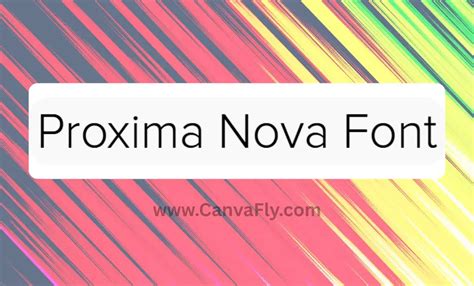
Proxima Nova Font Combinations. Web 1 2 next last. Web what serif font should i pair with proxima nova?
Released as proxima nova in 2005, as a revision and expansion of proxima sans (fonthaus, six. Web what serif font should i pair with proxima nova? Have you ever wondered what serif font would. Web 1 2 next last. Web proxima nova is available in seven weights—thin, light, regular, semibold, bold, extrabold and black—each with matching.
Have you ever wondered what serif font would. Web what serif font should i pair with proxima nova? Web proxima nova is available in seven weights—thin, light, regular, semibold, bold, extrabold and black—each with matching. Released as proxima nova in 2005, as a revision and expansion of proxima sans (fonthaus, six. Have you ever wondered what serif font would. Web 1 2 next last.